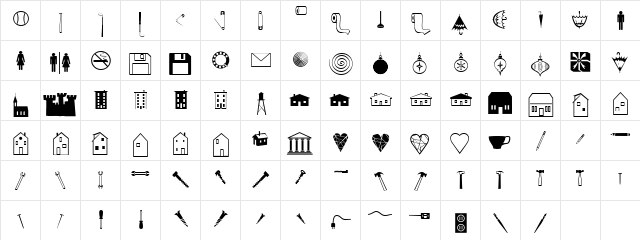
XIngyDingIII Regular
Design Context for XIngyDingIII Typeface
XIngyDingIII is a composed and adaptable typeface that performs quietly and consistently across a wide range of design contexts.